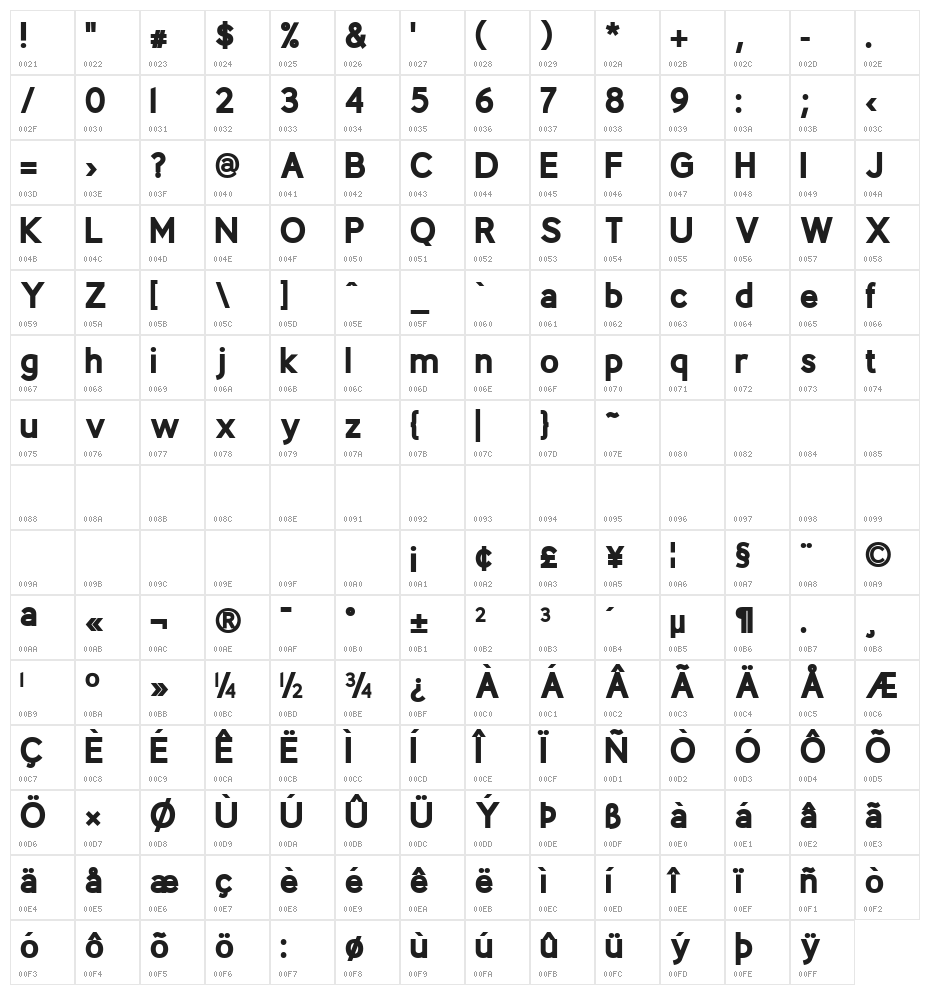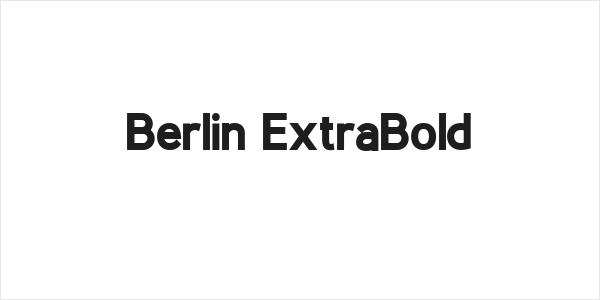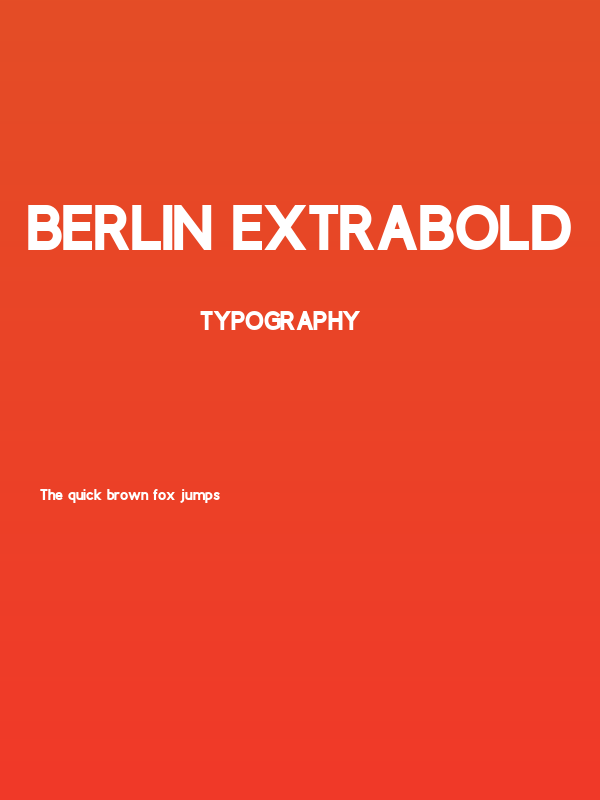
Berlin ExtraBold Font
Berlin ExtraBold Description
This typeface is characterized by its bold and strong appearance, making it highly suitable for impactful headlines and attention-grabbing designs. The letters are uniformly thick, with a modern and clean aesthetic that emphasizes clarity and readability. The uppercase and lowercase letters maintain a consistent weight, contributing to a cohesive look. The numerals are equally bold, ensuring they stand out in any context. Special characters are designed with the same attention to detail, providing a complete and versatile set for various design needs.
| Proposed Projects | This font is perfect for branding projects, advertising campaigns, poster designs, and any application where a strong visual presence is required. |